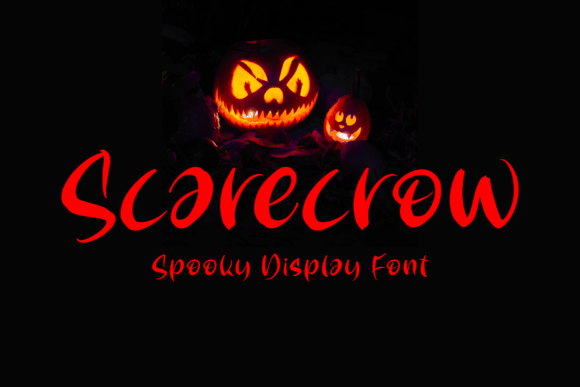
Introducing the Scarecrow Font – A Spooky Script Font to Terrify Your Designs!
Prepare to be mesmerized by the Scarecrow Font, a hauntingly beautiful script font that will add a touch of magic to any design project. Inspired by the mystique of a moonlit Halloween night, this font exudes an aura of mystery and enchantment that will leave your audience spellbound.
Unleash your creativity and embark on a thrilling journey into the world of macabre elegance. With its enchanting curves and ghostly charm, the Scarecrow Font will cast a spell on your designs, leaving your audience captivated and craving more.
Step into the realm of the supernatural and let your imagination run wild. Whether you're designing logos, branding projects, or creating stunning homeware designs, the Scarecrow Font will elevate your work to new heights of sophistication.
Picture this: Your logo, adorned with the Scarecrow Font, will emit an aura of intrigue, leaving a lasting impression on potential customers. Or envision your branding materials, imbued with the ethereal essence of this font, captivating your audience and leaving them yearning for more. And let's not forget about your homeware designs – adorned with the Scarecrow Font, they'll possess an eerie elegance that will transform your living space into a haunted haven.
But the enchantment doesn't end there. Let the Scarecrow Font cast its spell on your product packaging, mugs, and book covers, transforming them into objects of desire. Your quotes, posters, and greeting cards will take on a life of their own, captivating readers with their haunting beauty.
The possibilities are endless with the Scarecrow Font. Dive into the realm of the supernatural and let your creativity flourish. Embrace the dark and mysterious, and let the Scarecrow Font guide you to new heights of design excellence.